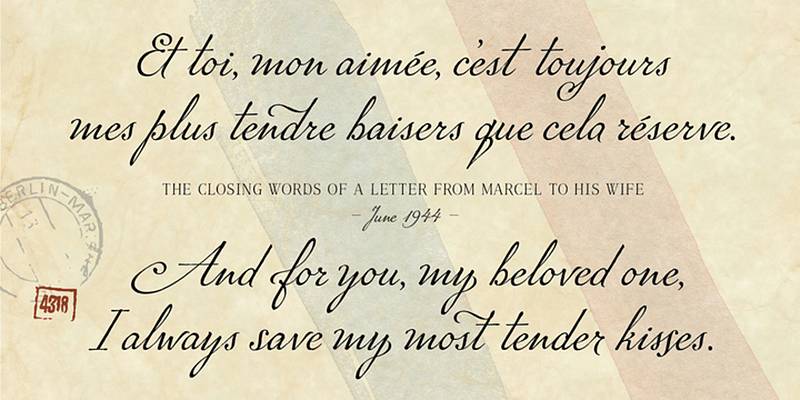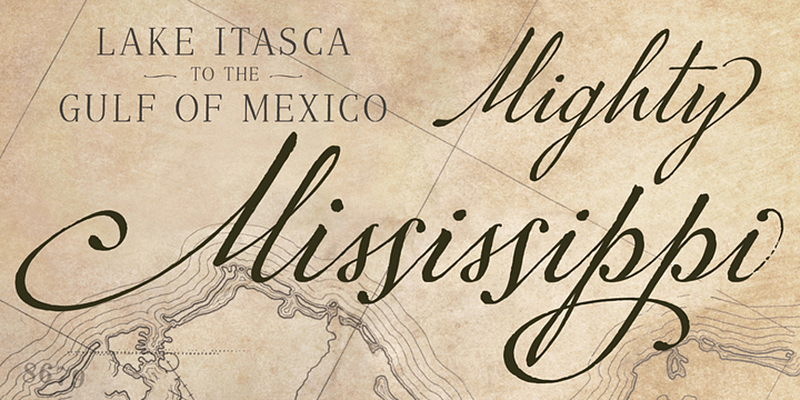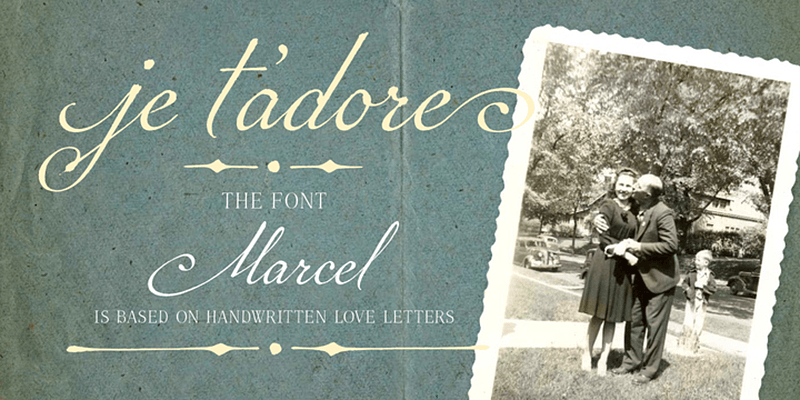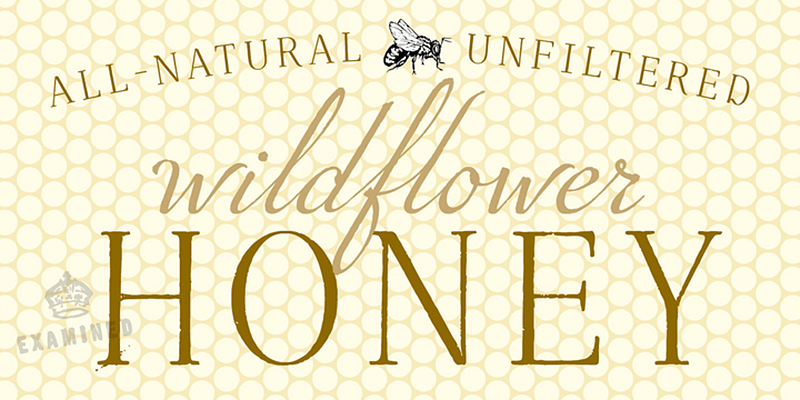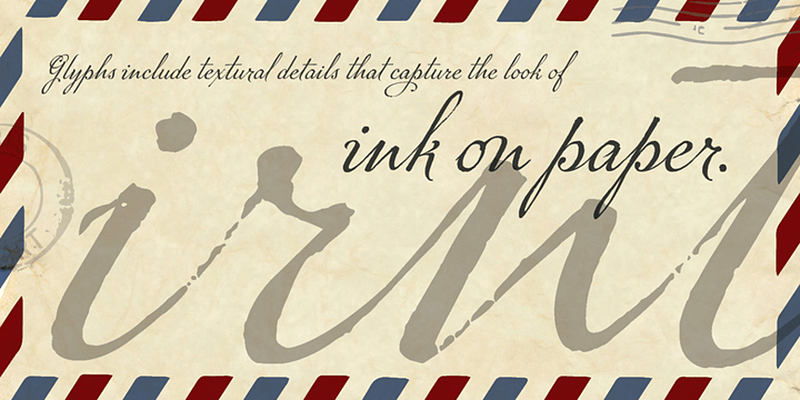
P22 Marcel is named in honor of Marcel Heuzé, a Frenchman who was conscripted into labor during World War II, whose wartime letters were the basis for this highly readable running script.